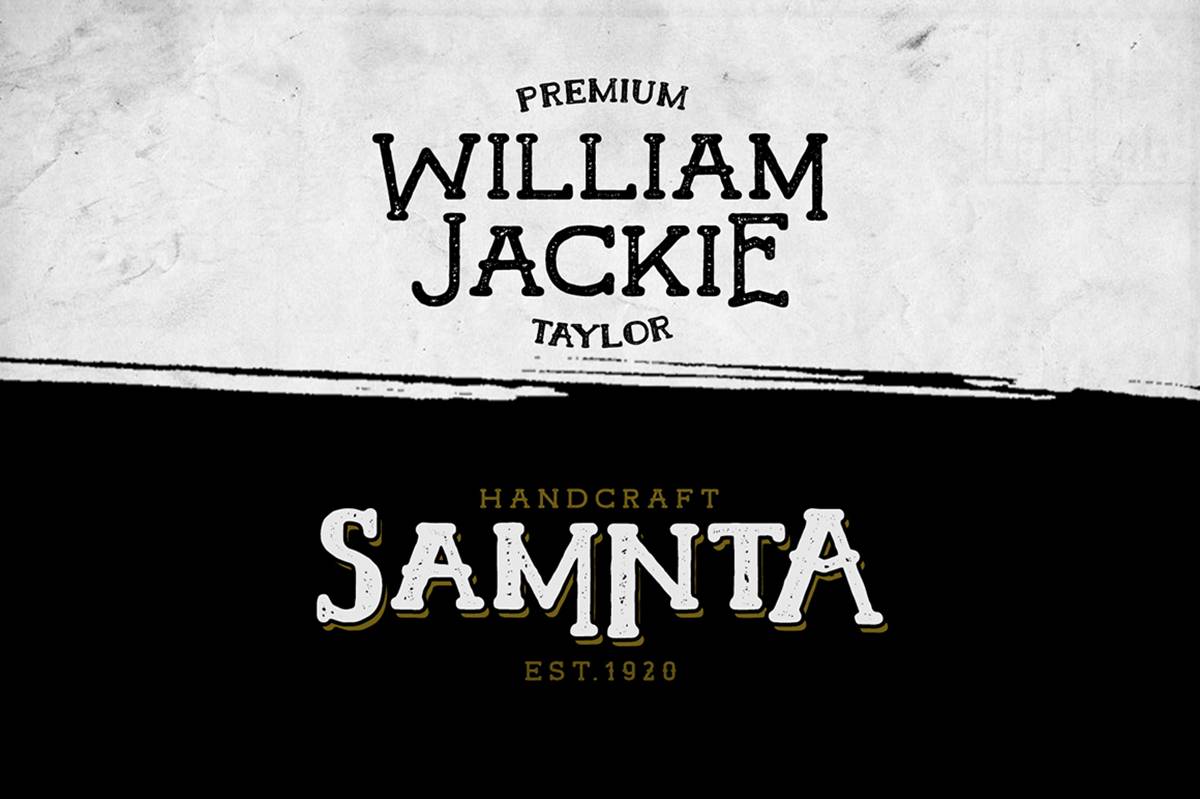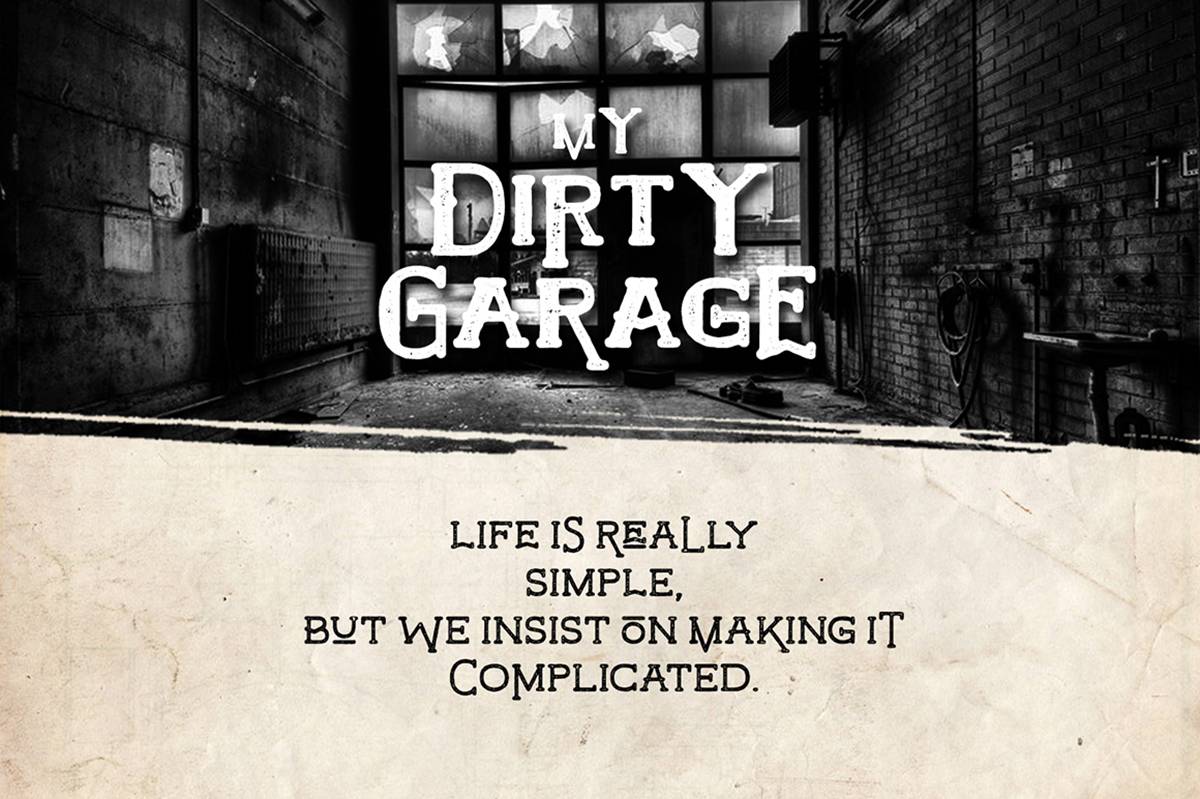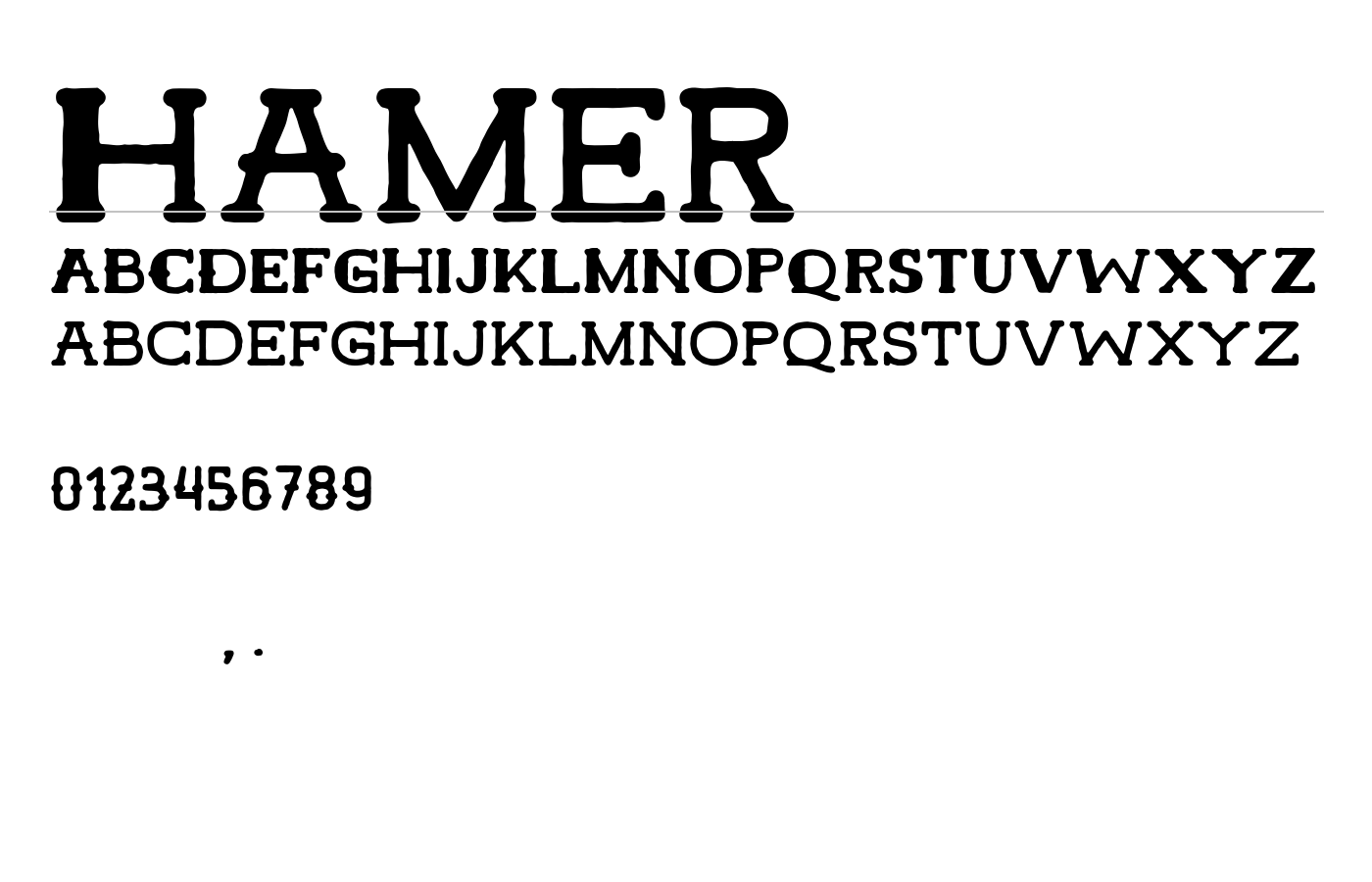
Hamer is a bold slab serif font with a strong, vintage character, featuring thick, blocky serifs and a slightly condensed width that gives it a sturdy and confident presence. Its high stroke contrast and playful, irregular shapes add a rustic, handcrafted feel, making it perfect for retro-themed branding, posters, and packaging that aim to convey authenticity and boldness. This font works best in headlines and display uses where a distinctive, eye-catching style is needed.
Hamer Font
About Hamer Font